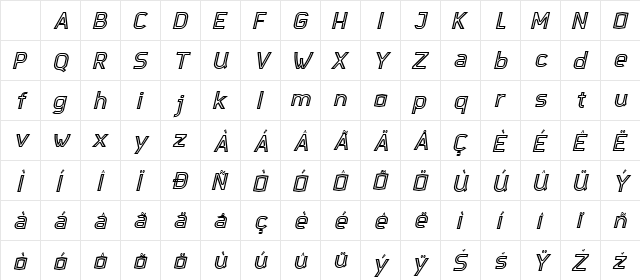
Djavaloca-Inline-DEMO is built around its visual character rather than neutral utility - its distinctive forms are designed to make an impression at display sizes. The slanted form adds forward momentum and visual energy.
Font Pairing: Pair with a clean neutral sans-serif for body copy to let Djavaloca-Inline-DEMO's character lead without overwhelming the composition.
Pro Tip: Use Djavaloca-Inline-DEMO exclusively at display sizes - it was designed to be seen, not read at length. Let a neutral companion handle body copy.